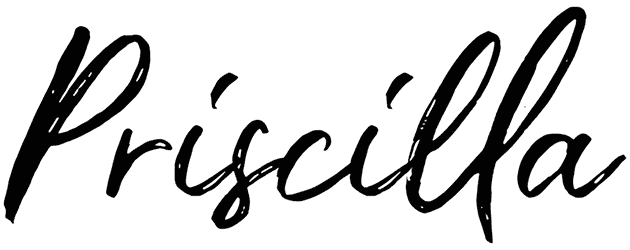
Priscilla Font
Since this brush font comes with curved and oblique characters, it can add a sense of softness, delicacy, and precision to any graphic project. Aside from all its benefits, this masterpiece provides two distinctive styles for all designers.